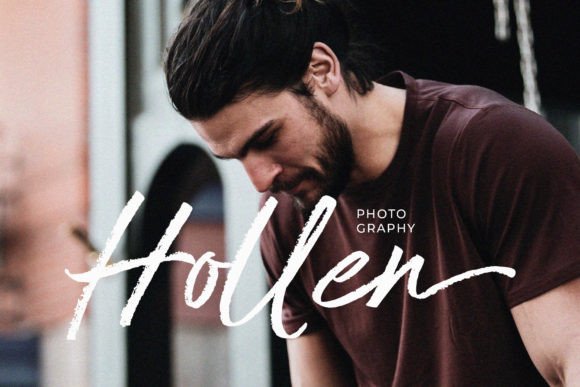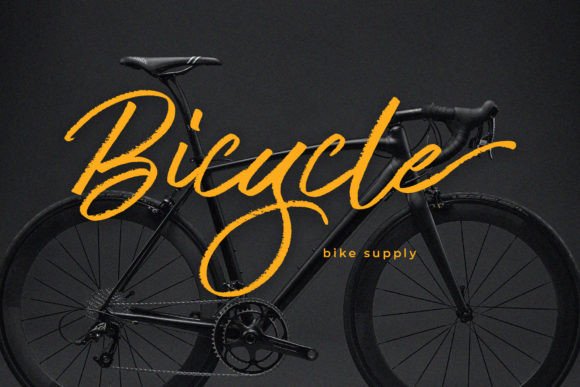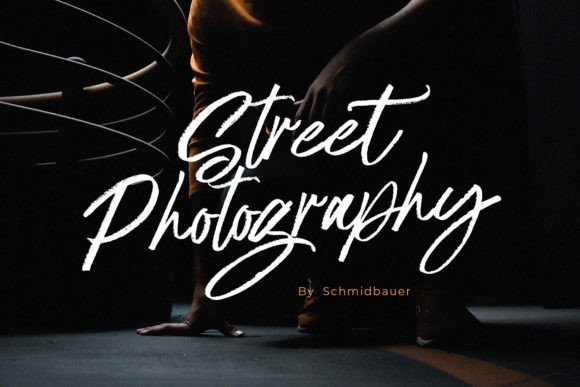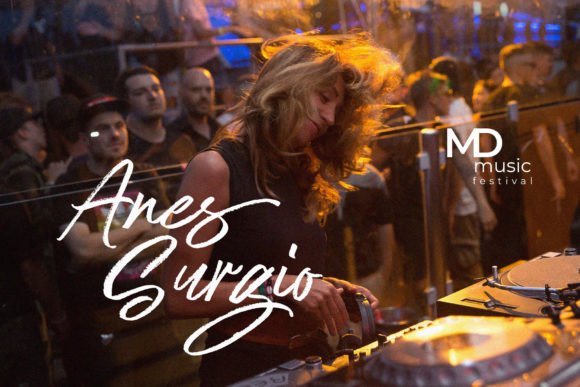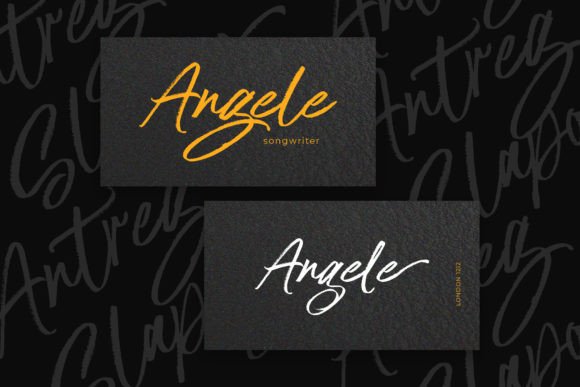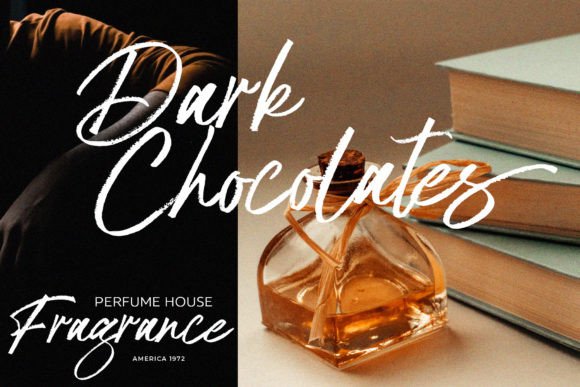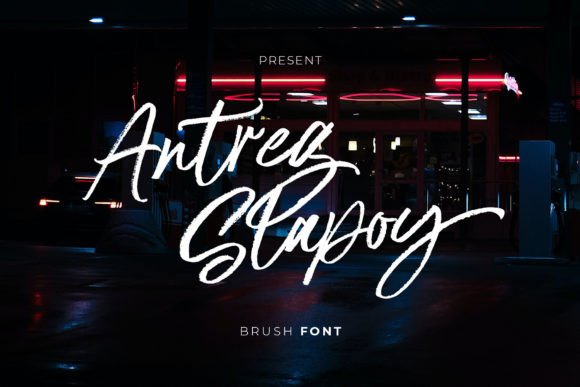
Introducing Antreg Slapoy: The Handwritten Brush Font That’s a Game-Changer for Designers
I’ll never forget the time I was working on a logo design project for a local coffee shop. I had a clear vision of what I wanted to create, but I just couldn’t find the right font to bring it all together. The client wanted something that felt authentic, handcrafted, and unique. That’s when I stumbled upon Antreg Slapoy, a handwritten brush font that completely transformed my design. In this article, I’ll share my experience with Antreg Slapoy, its features, and how to make the most of it in your designs.
What Makes Antreg Slapoy Special?
Antreg Slapoy is a handwritten brush font that boasts authentic dry brush strokes drawn on paper. Its unique texture and organic feel make it perfect for a variety of design projects, from logo design and poster design to social media graphics, typography quotes, book covers, and packaging designs.
What I Love About Antreg Slapoy ✨
- 💯 Authentic texture: The dry brush strokes give Antreg Slapoy a genuine, handcrafted feel that’s hard to replicate with digital fonts.
- 🎨 Versatility: This font can be used for a wide range of design projects, from bold and playful to elegant and sophisticated.
- ✅ Easy to read: Despite its handwritten nature, Antreg Slapoy is surprisingly legible, even at smaller font sizes.
- 🌈 Customizable: With OpenType features and glyphs, you can experiment with different styles and alternates to make the font your own.
- ⚠️ Limited use in formal contexts: Antreg Slapoy’s informal, handwritten nature makes it less suitable for formal or corporate designs.
- 🤯 Overuse of effects: Be careful not to overdo it with too many effects or textures, as this can detract from the font’s natural beauty.
The Story Behind Antreg Slapoy
Antreg Slapoy was created by a talented font designer who wanted to capture the essence of hand-drawn typography. Inspired by the imperfections and uniqueness of hand-painted signs, the designer crafted Antreg Slapoy to bring a touch of authenticity to digital designs.